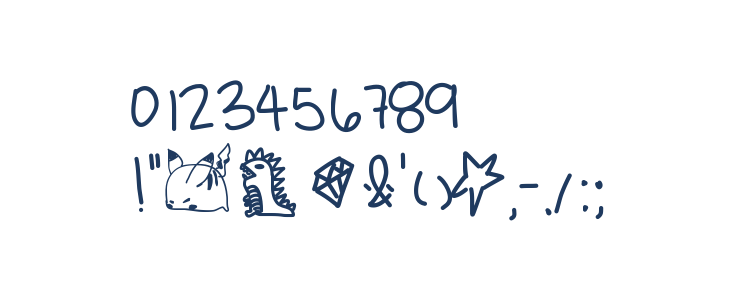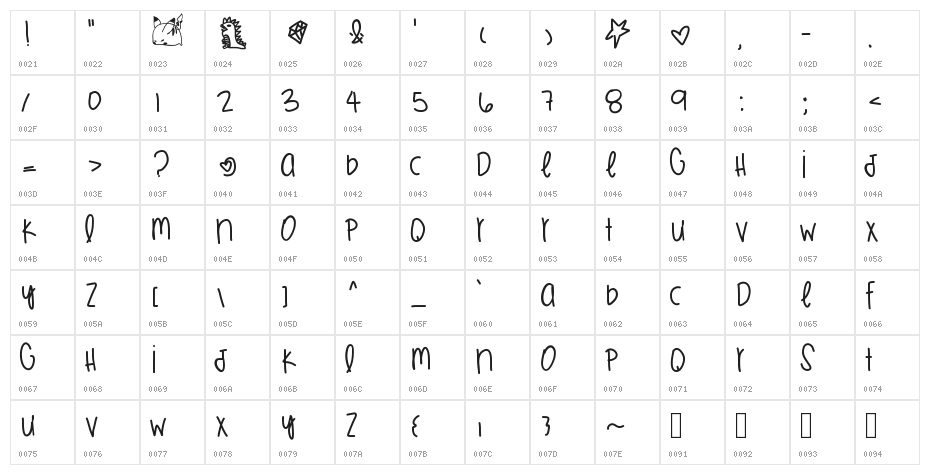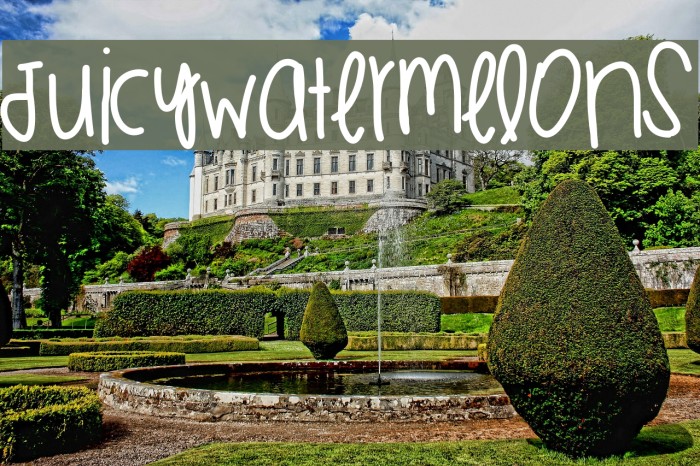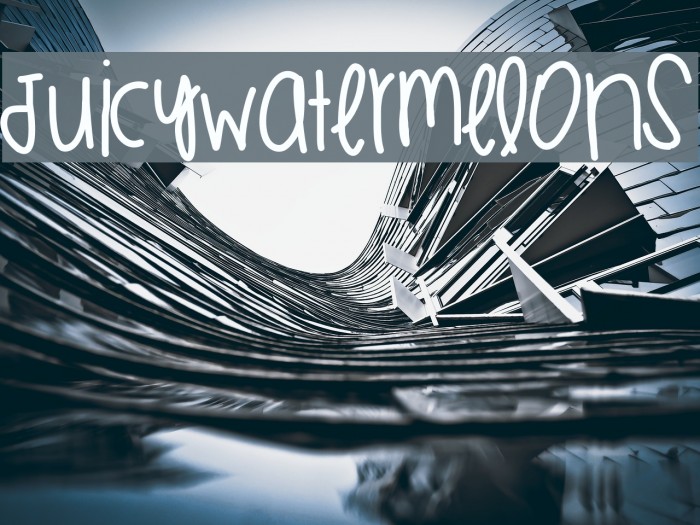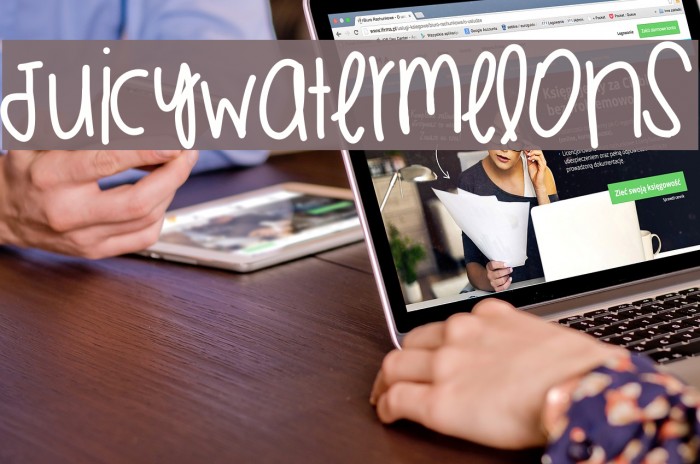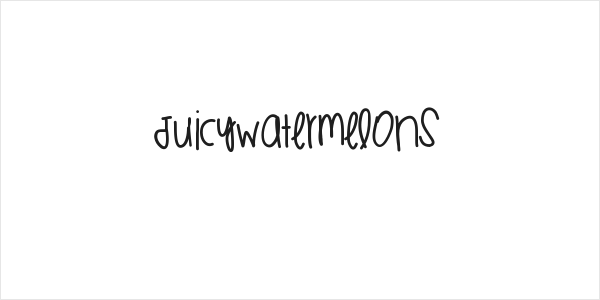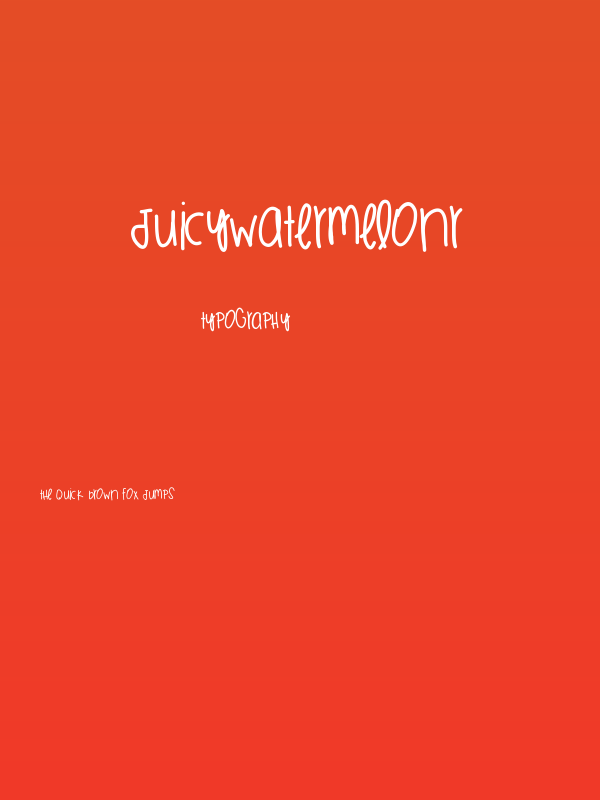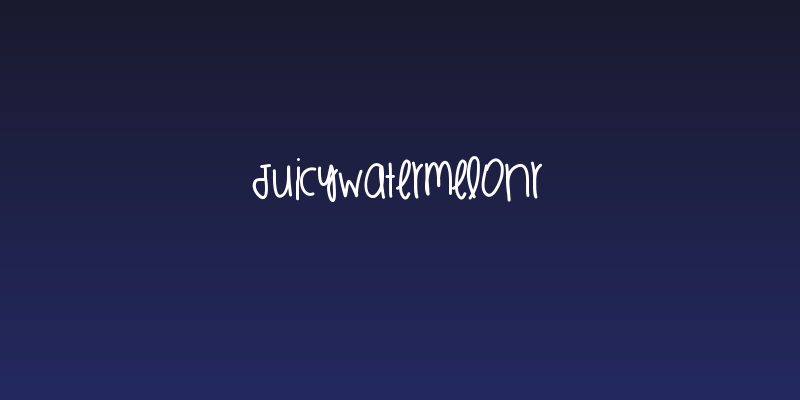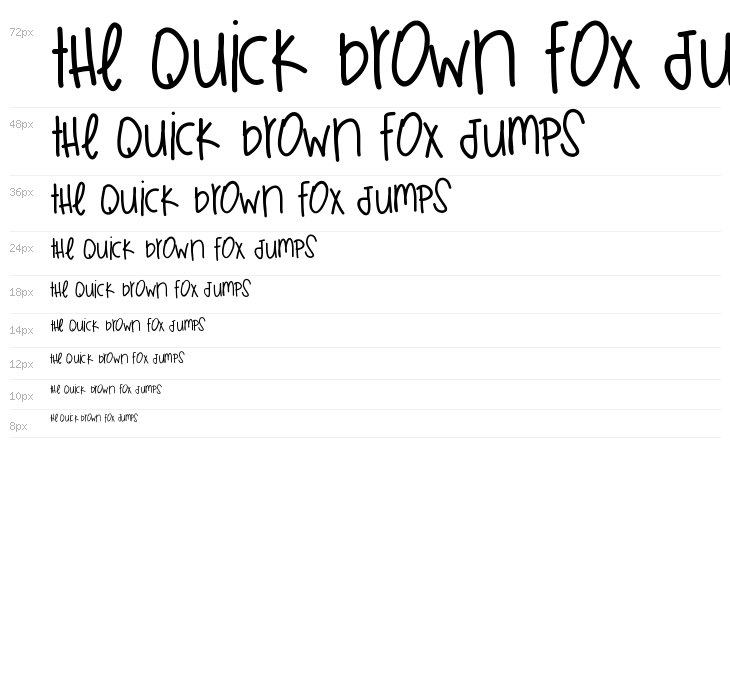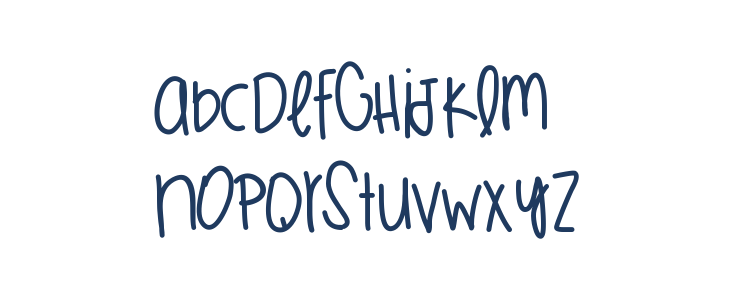
JuicyWatermelons Font
JuicyWatermelons Description
This playful and whimsical font features a handwritten style with a casual and friendly appearance. The letters are slightly elongated with a consistent stroke width, giving it a uniform and approachable look. The lowercase letters have a smooth, flowing quality, while the uppercase letters maintain a similar style with a bit more structure. The numbers are rounded and match the overall aesthetic, making them easy to read. Special characters are included, adding versatility to the font. This font is perfect for projects that require a personal touch or a fun, informal vibe.